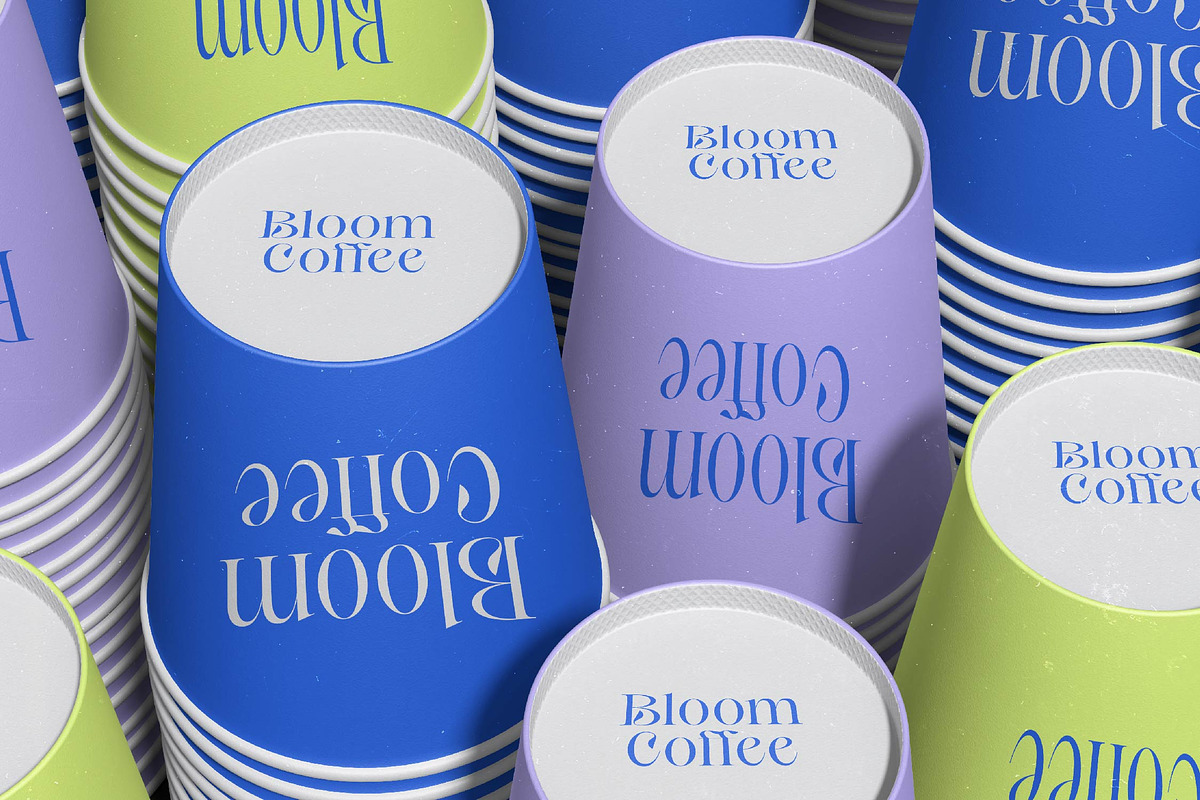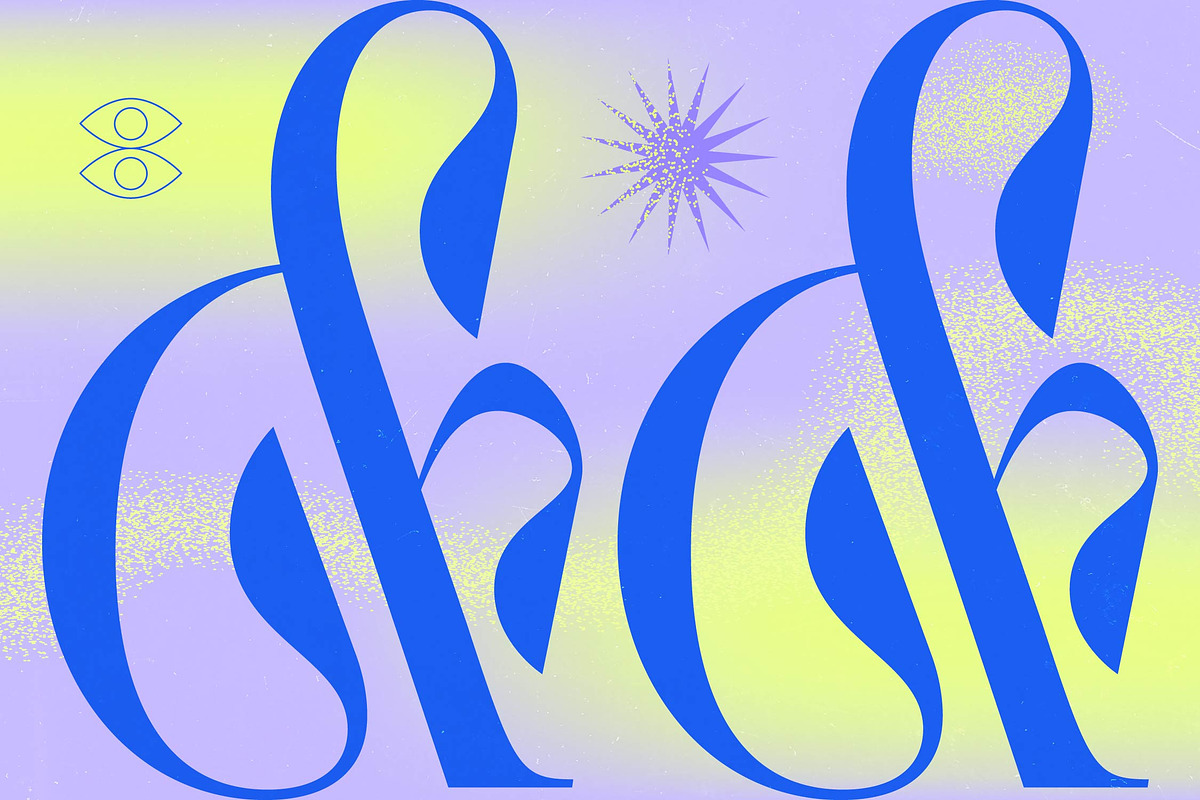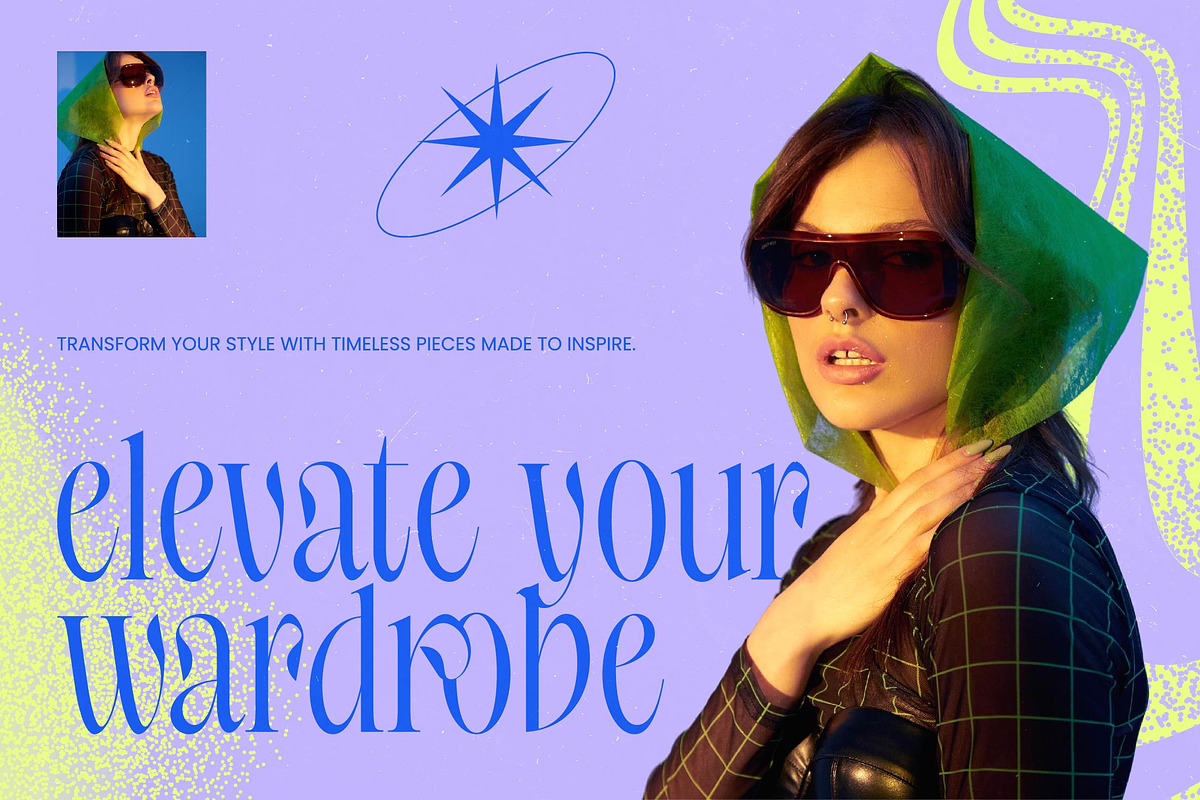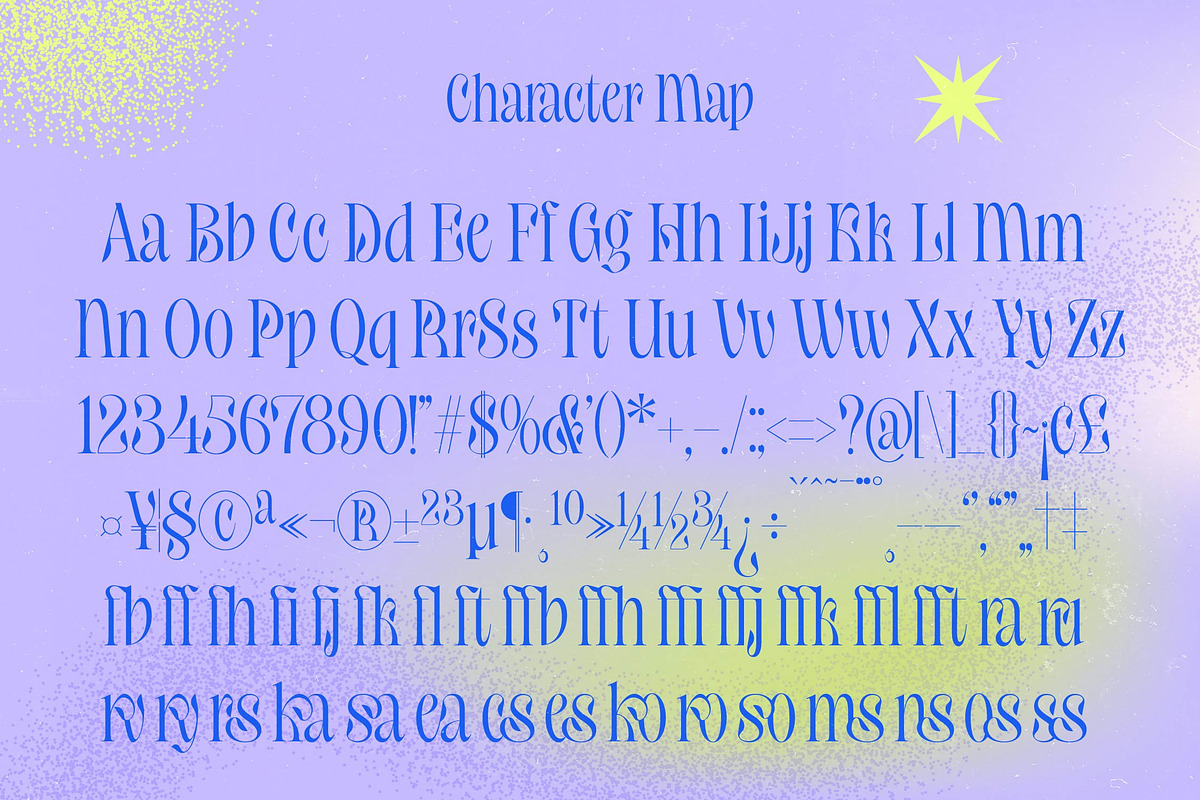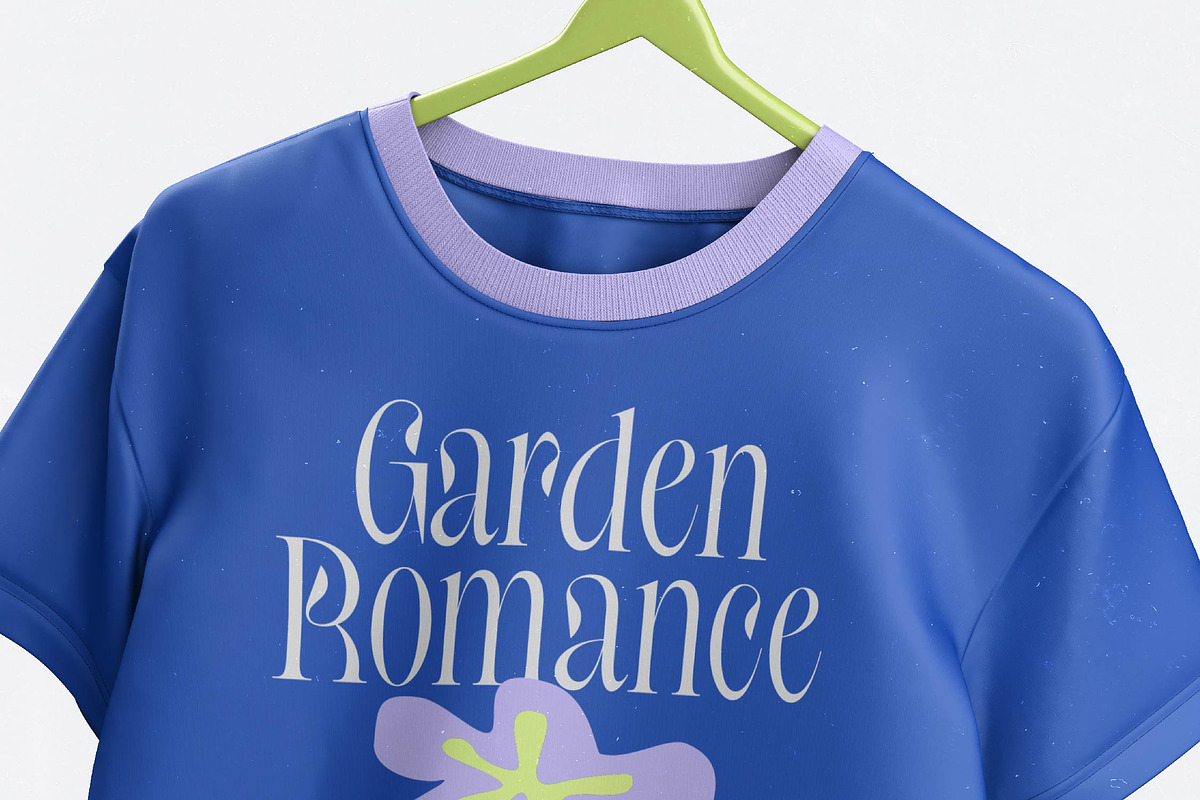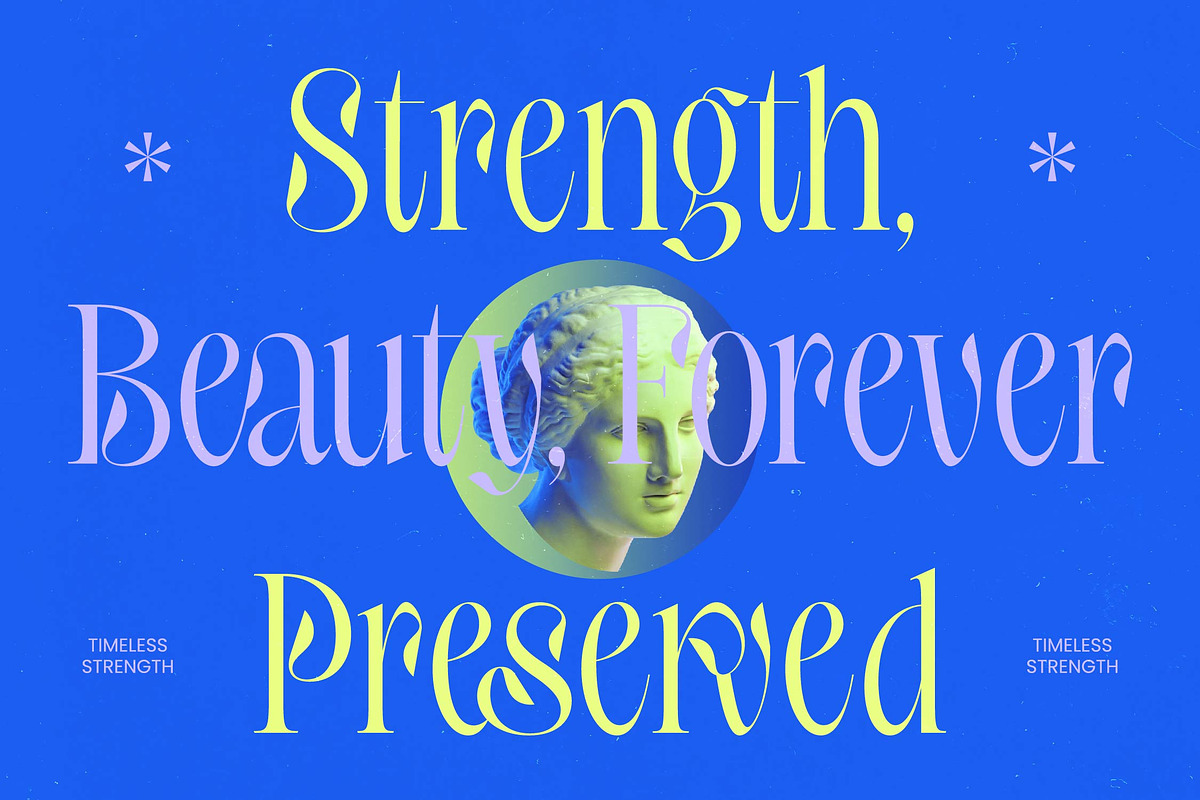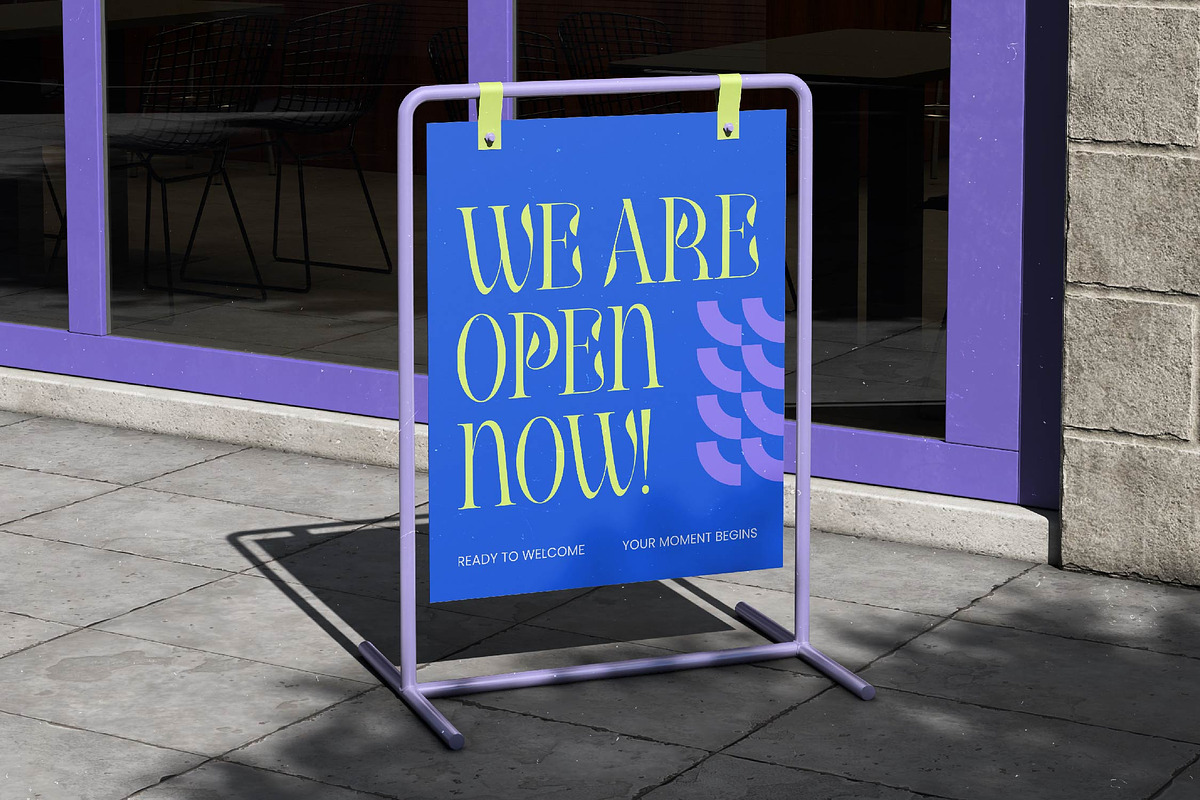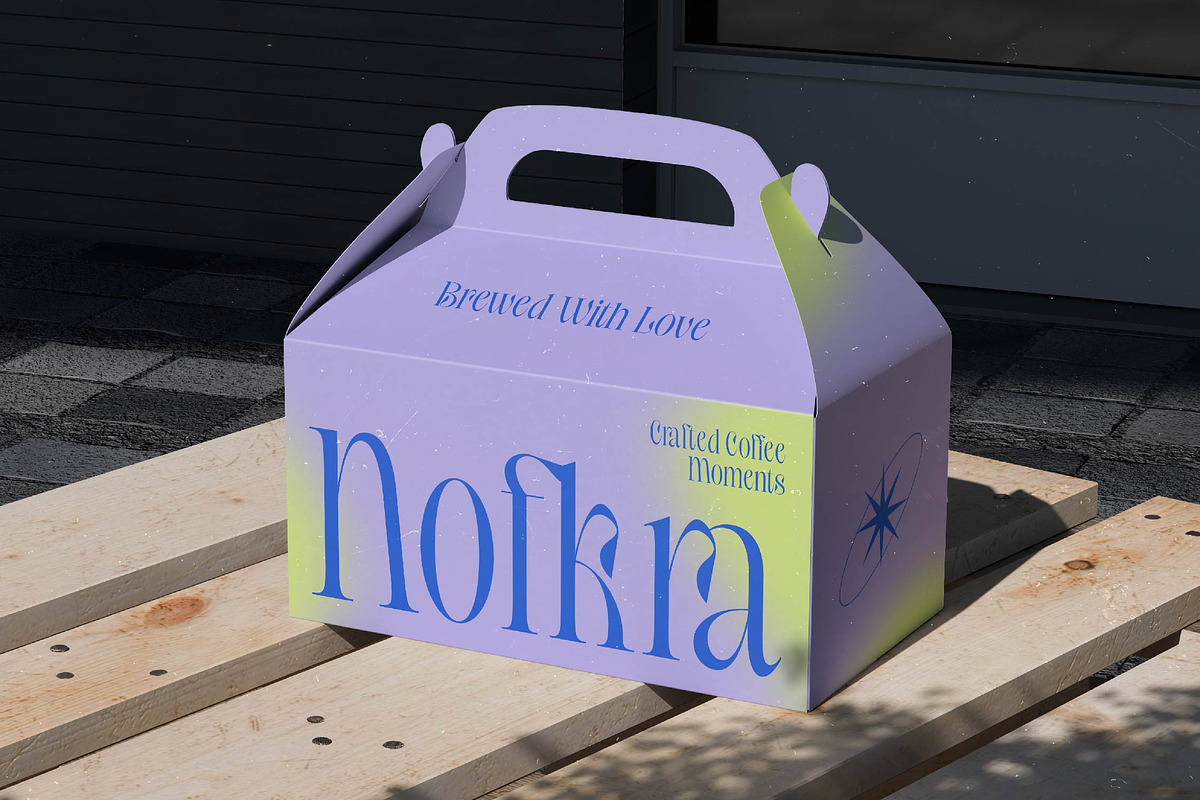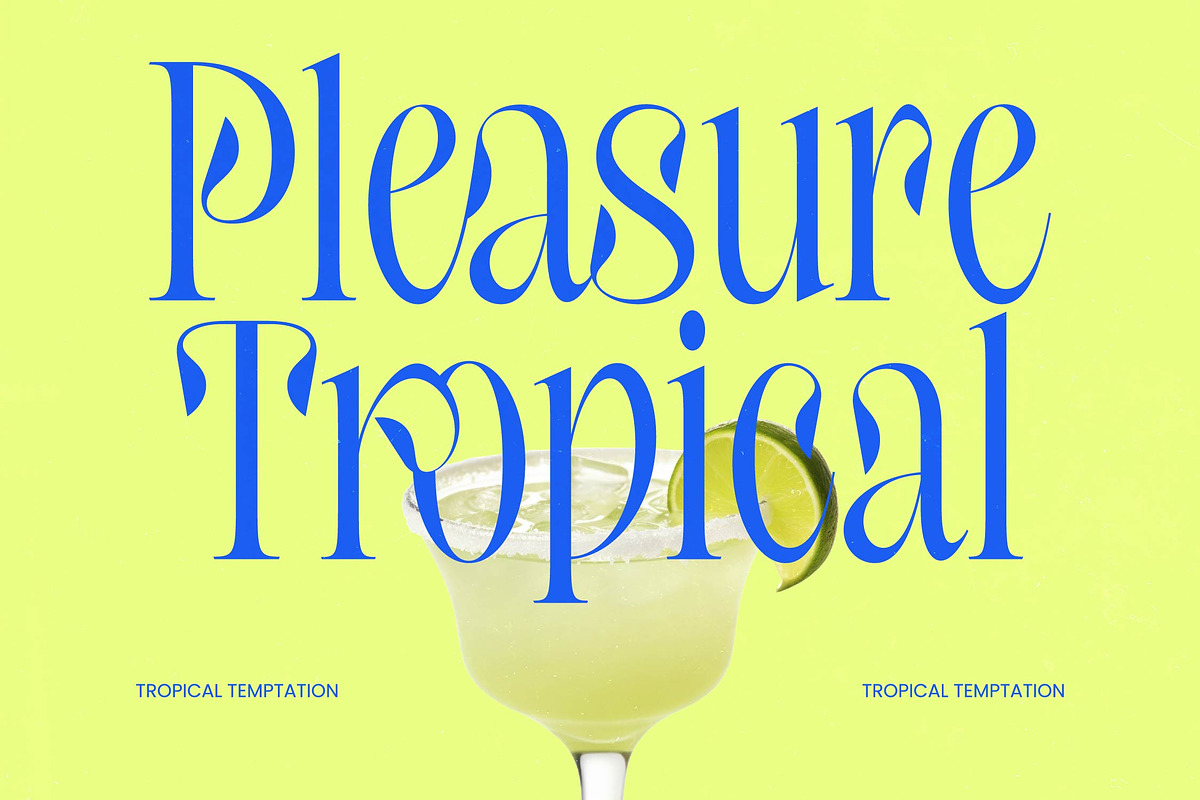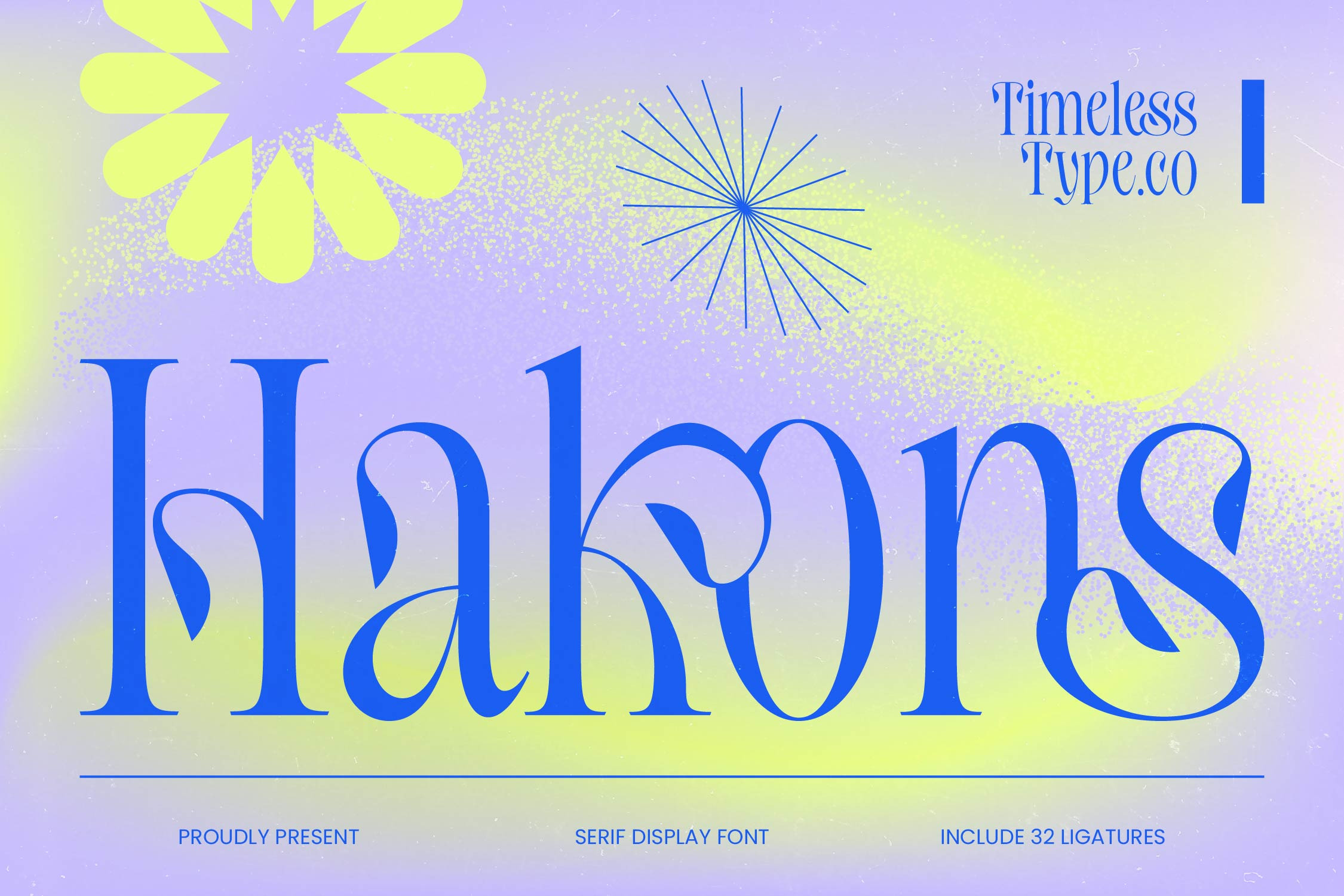
Hakons Serif Display Font
Hakons - Serif Display Font , Elevate your design projects with the unparalleled elegance of Hakons - Serif Display Font. This typeface is a masterpiece of high-contrast typography, blending classic serif foundations with avant-garde flair. Its refined silhouettes and sophisticated curves evoke a sense of luxury and exclusivity, making it a standout choice for designers seeking to make a bold, professional statement.
Masterfully crafted to capture attention, Hakons - Serif Display Font features 32 artistic ligatures that redefine visual harmony. The interplay between its bold vertical strokes and delicate hairlines creates a dynamic rhythm that commands the viewer’s eye. With its extensive multilingual support, Hakons - Serif Display Font adapts seamlessly across global markets, making it incredibly versatile for international projects.
Discover the perfect typographic solution for high-end creative work and luxury branding. Hakons - Serif Display Font is perfect for editorial design, upscale packaging concepts, and premium magazine mastheads. Its timeless aesthetic ensures it remains a staple for logo design and sophisticated signage, providing a chic visual identity that transcends fleeting trends.